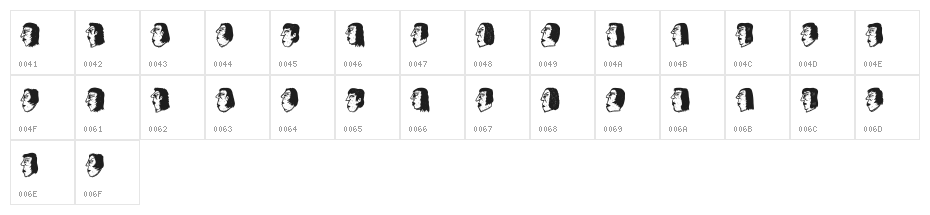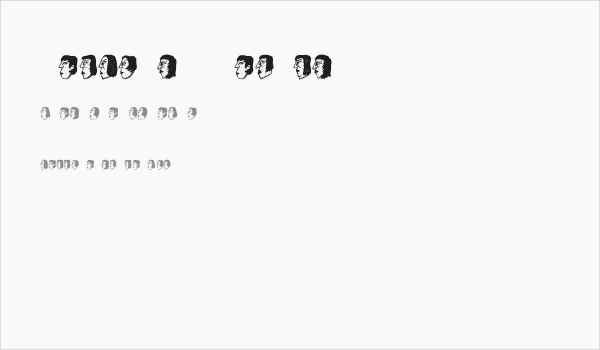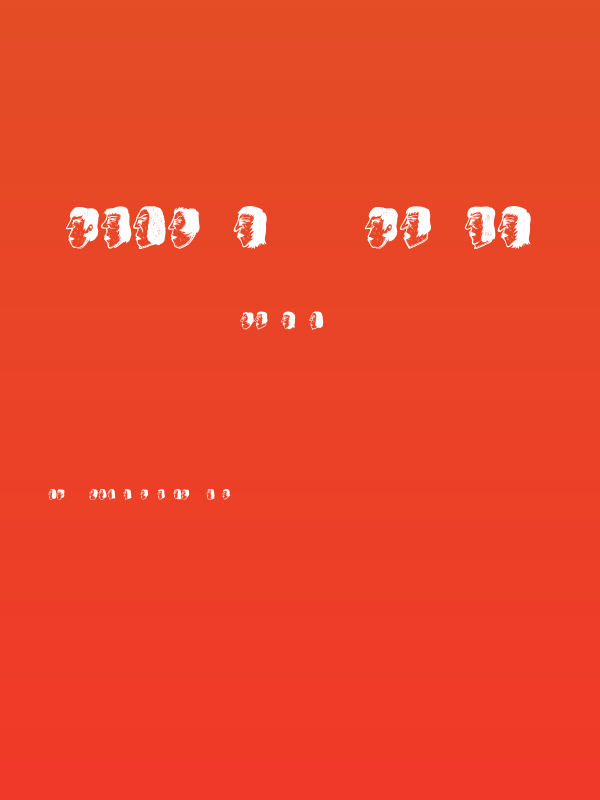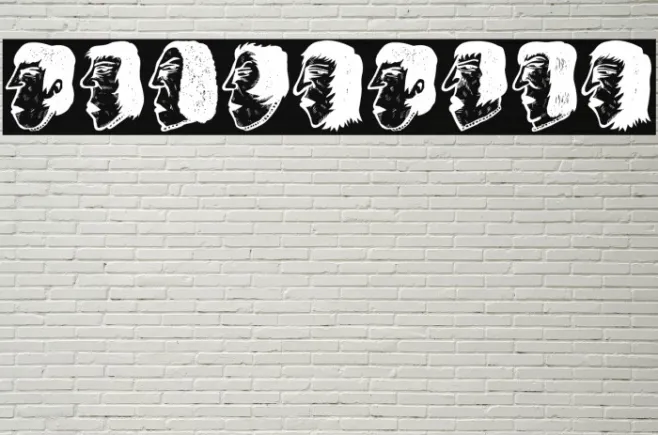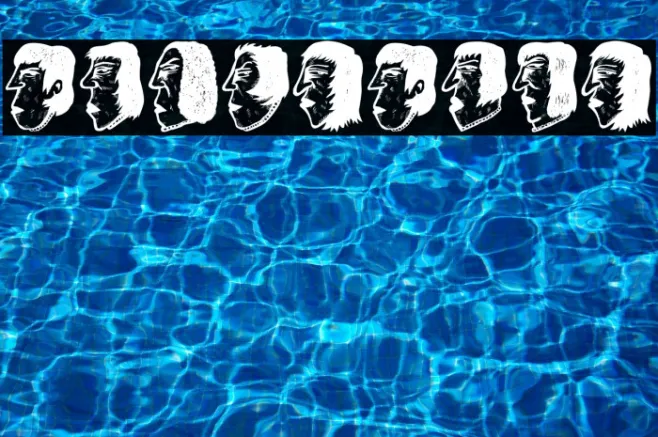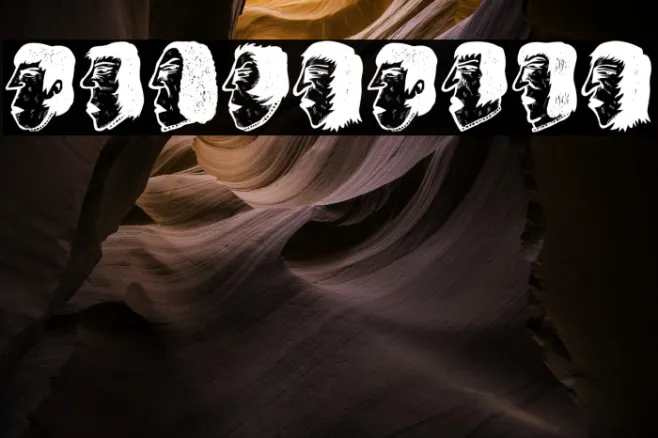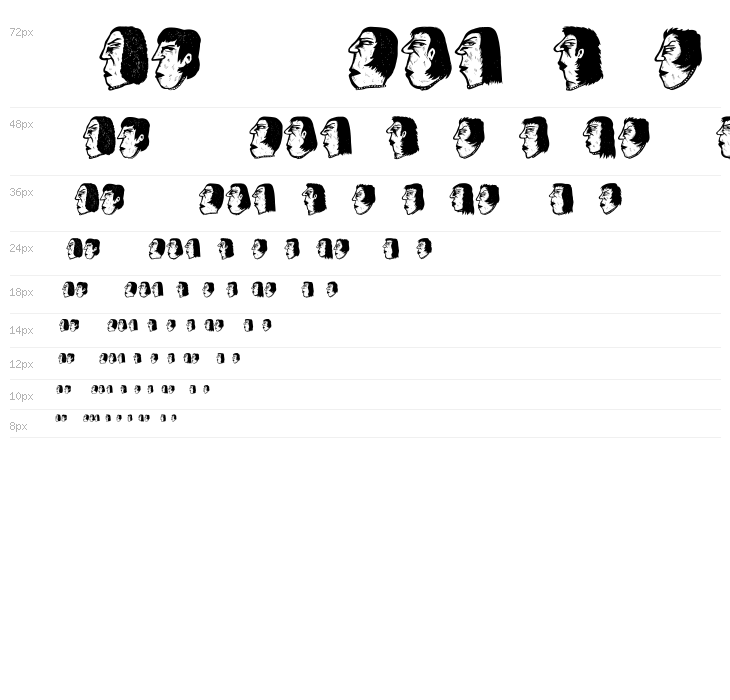
Senhoras Regular Font
Senhoras Regular Description
This unique typeface features a series of illustrated human profiles, each representing a different character. The design is highly decorative, with intricate details capturing various facial expressions and hairstyles. Each character is distinct, providing a playful and artistic approach to typography. The font is more of an artistic representation rather than a traditional text font, making it ideal for creative projects that require a visual impact. The characters are evenly spaced, ensuring clarity and readability despite the intricate designs.
| Use Case | Logos, Posters, Artistic projects |
| Proposed Projects | Ideal for artistic projects, posters, album covers, and any creative work that benefits from a unique visual element. |